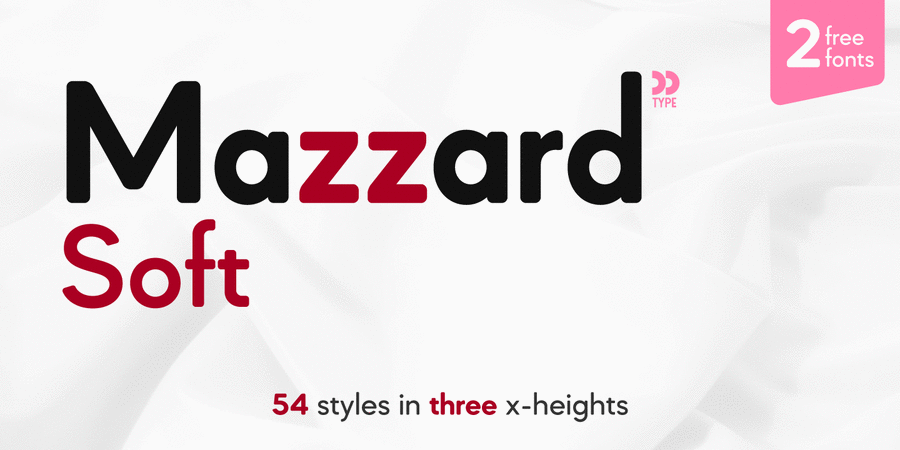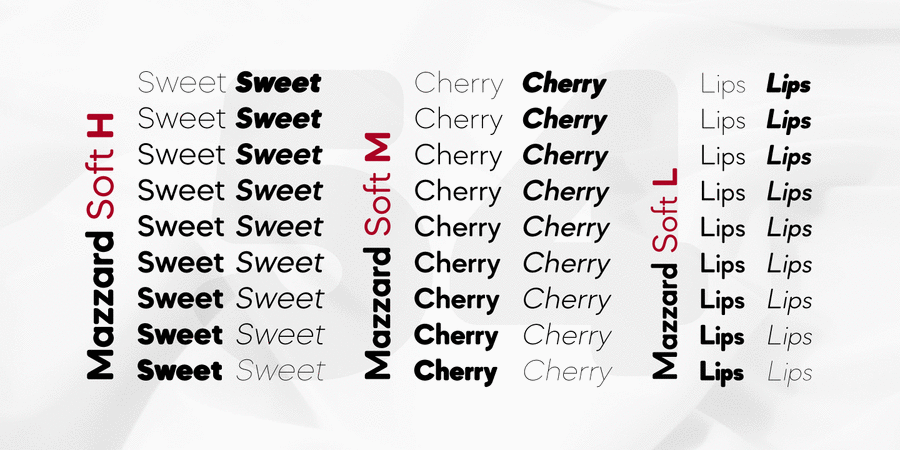
Mazzard Soft M is a part of Mazzard Soft font family – rounded version of Mazzard superfamily. It has two more geometric grotesques with different x-heights (H and L).
It features rich language support, includes Cyrillic, and offers a wide variety of alternate forms.
The typeface was designed by Oleh Lishchuk in 2019.
elementary, minimalistic, accurate, flat, static, logical, laconic, stable, artificial, cold, urban, clean, modern, thin, wire, easy, chilly, clear, weightless, transparent, fragile, fashionable, pleasant, neon, round, Soft, comfortable, fresh, nice, plastic, smooth, friendly, good-natured, calm, moderate, peaceful, kind, simple, neutral, urbanistic, primitive, home, strict, pragmatic, practical, available, self-assured, machine, low key, strong, independent, convincing, mandatory, robust, important, motivating, tough, railway, ambitious, good quality, hot, affable, cute, children, naive, delicious, generous, lush, cozy, benevolent, high-quality, family, playful, bright, abundant, plentiful, saturated, powerful, fat, formidable, splashy, notable, heavy, dense, close-fitting, active, loud, daring, rubber